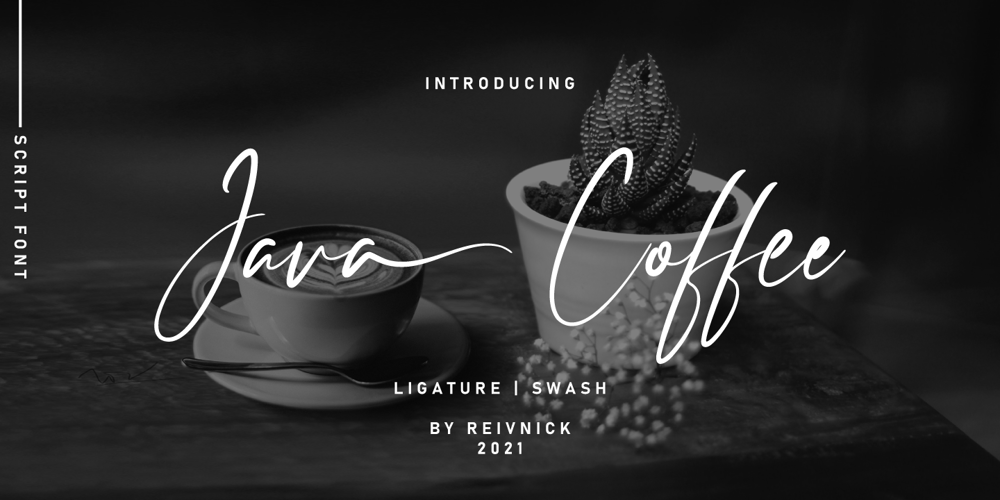
Java Coffee Font Family was designed by Benediktus Hosni Iryandito and published by ReivNick. Java Coffee contains 1 styles and family package options. Java Coffee Script Font is an adorable and visually elegant signature script font. Comes with alternatives and ligatures. Perfect for editorial projects, branding, weddings, social media, product design, stationery, advertising other romantic projects, or simply as a stylish text overlay to any background image.Features : Uppercase and Lowercase Stylistic Alternates & Ligatures Numerals & Punctuation PUA Encoded Contact me If you have any questions. Thank you!